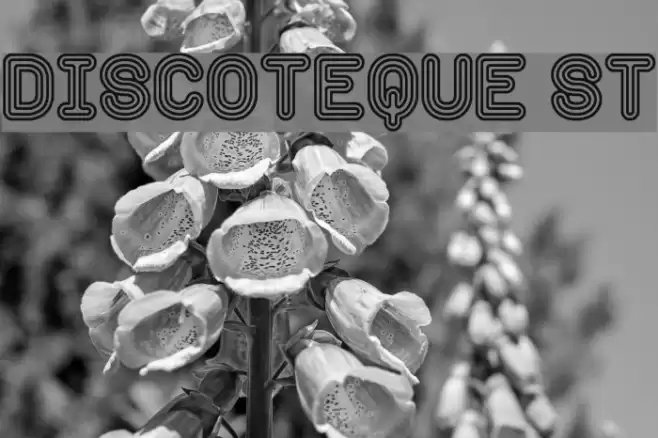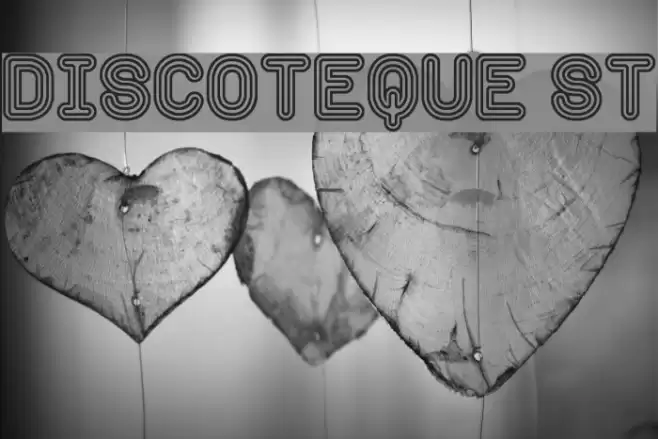
Discoteque St Font
Discoteque St Description
This font features a bold, outlined style with a distinct retro vibe. Each character is crafted with multiple concentric lines, creating a layered, three-dimensional effect. The uppercase letters are uniform in height, while the numbers and special characters maintain the same stylistic approach, ensuring consistency across all glyphs. The design is reminiscent of neon signs and disco-era aesthetics, making it ideal for projects that require a touch of nostalgia and flair. The spacing between characters is balanced, allowing for readability while maintaining its decorative appeal.
A bold, outlined font with a retro, disco-inspired design from Fancy fonts.
- Proposed Projects: Ideal for retro-themed posters, event flyers, music album covers, and branding that seeks a vintage or playful touch.
- Overall Style: Vintage